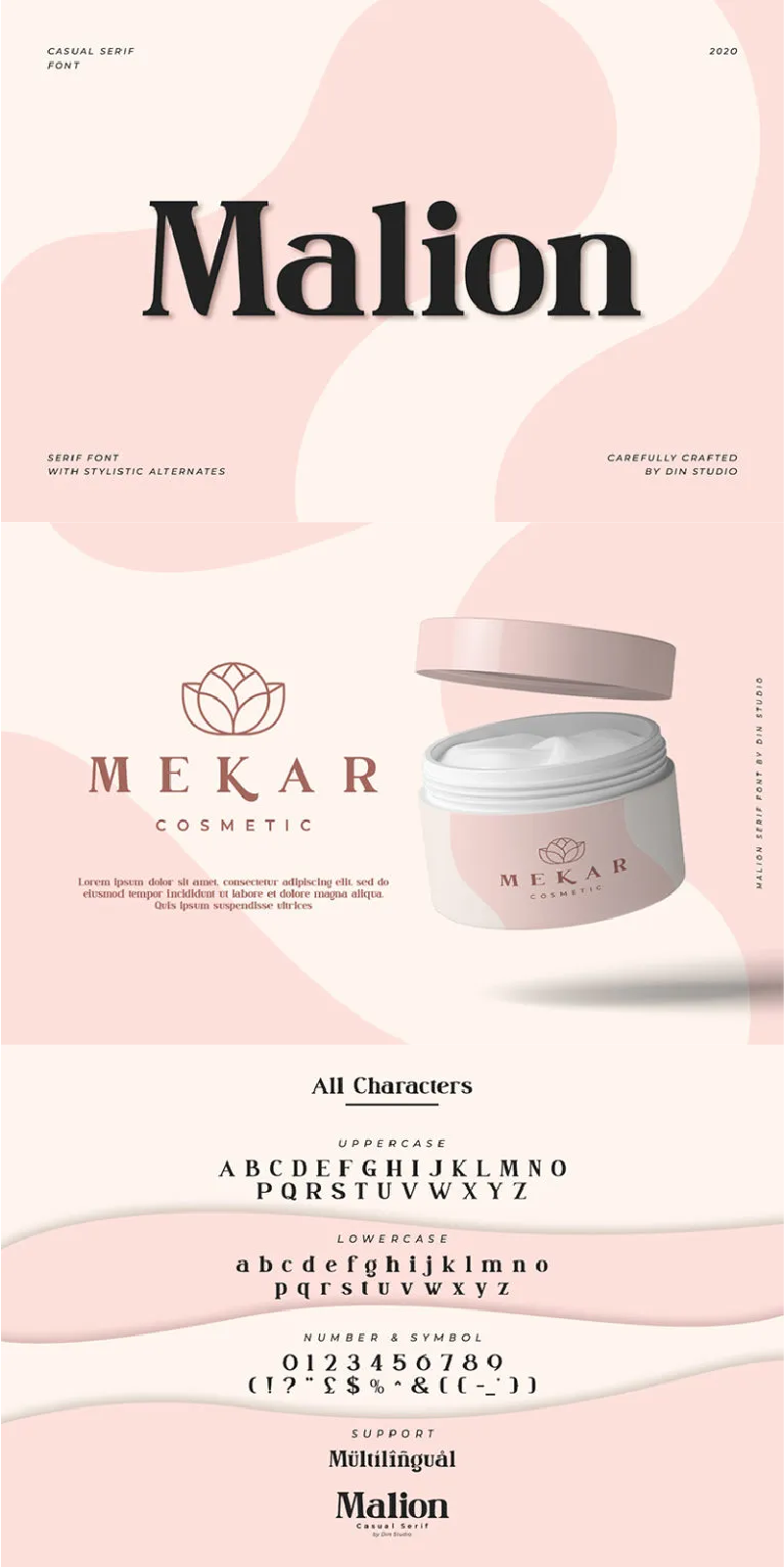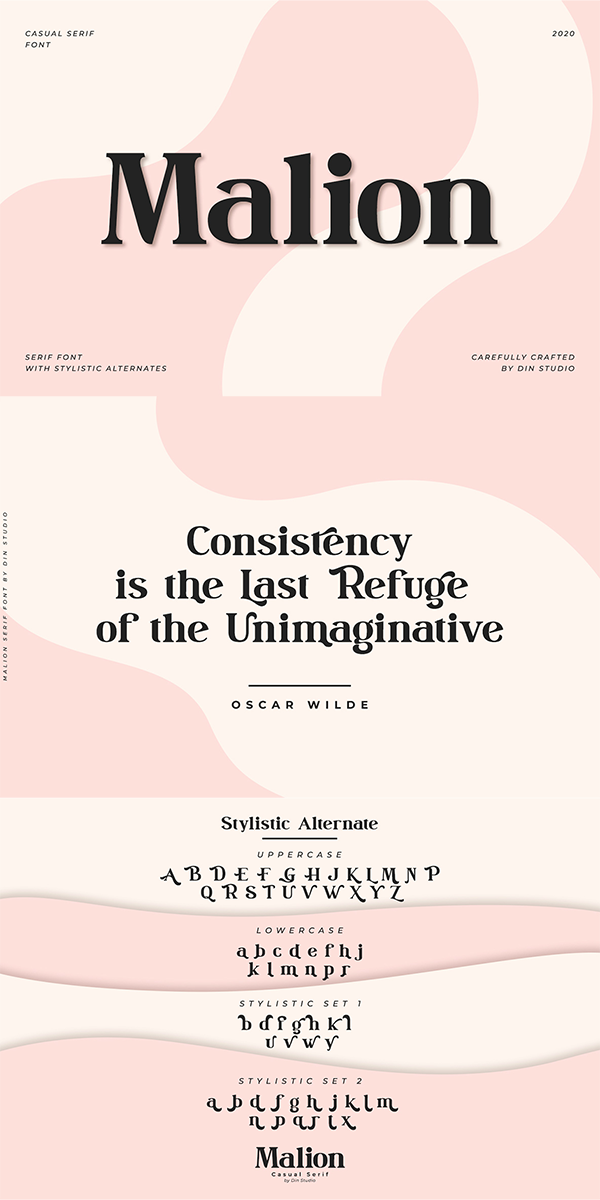
Malion Font
About Malion
Malion font is a modern and clean display (Serif) font. Create from our talented font designer. The design of typeface will make your design more beautiful and inspiring. This font will suitable for any project, like branding, print template, logo and etc. See the previews above to get some inspiration on how you can use them. Happy Designing!
Features :
-64 Alternates
-Numerals and Punctuation (OpenType Standard)